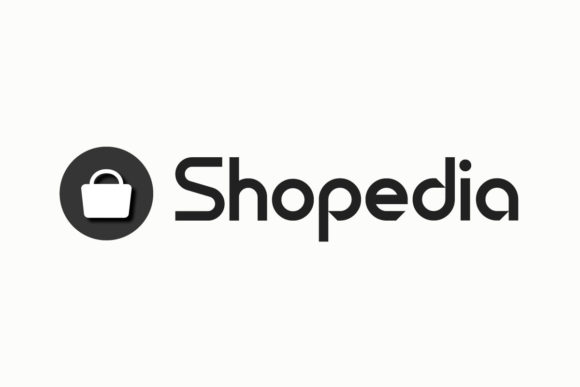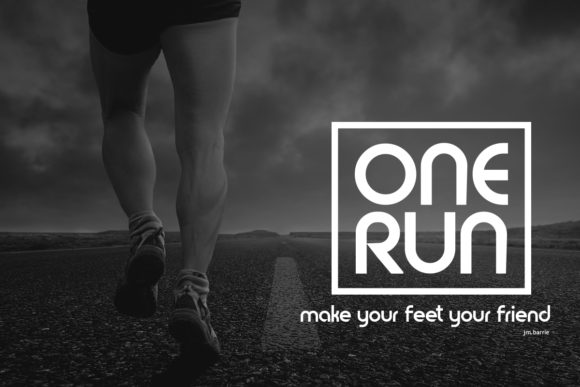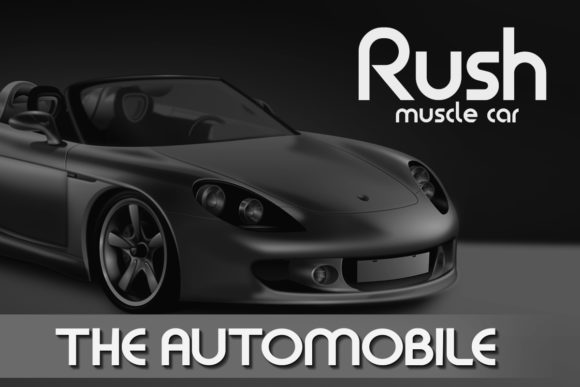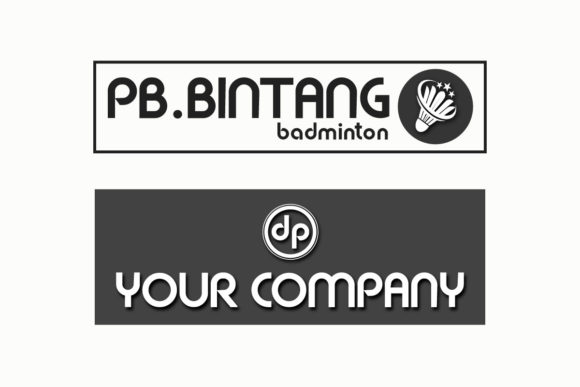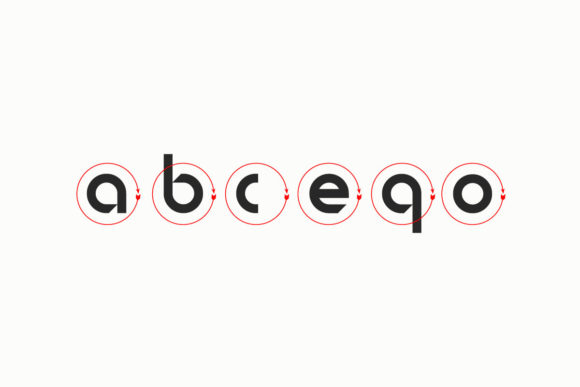
Grayson Font: Elevate Your Designs with a Modern Sans Serif Style
In the world of typography, fonts play a crucial role in conveying the tone and aesthetic of a design. For designers and crafters looking to add a touch of modernity to their projects, the Grayson font is an excellent choice. This sleek and contemporary sans serif font is perfect for a wide range of applications, from logos and magazines to branding and more.
What is Grayson Font?
Grayson font is a modern sans serif typeface designed to bring a fresh and clean look to your designs. Its minimalist approach and sleek lines make it an ideal choice for designers who want to create a bold and contemporary visual statement. The font’s simplicity and clarity ensure that it remains legible even at smaller sizes, making it versatile for various design applications.
Key Features of Grayson Font
- Modern Aesthetic: Grayson font boasts a modern sans serif design that instantly elevates the visual appeal of your projects.
- Versatility: Its clean and simple design makes it suitable for a wide range of applications, including logos, magazines, branding, and more.
- Legibility: The font’s clear and well-defined characters ensure excellent legibility, even at smaller sizes.
- Customization: Grayson font can be easily customized to fit your design needs, allowing for creative freedom.
Use Cases for Grayson Font
The versatility of Grayson font makes it an excellent choice for various design projects. Here are some popular use cases:
- Logo Design: Create a modern and memorable logo that stands out with Grayson font.
- Magazines and Editorials: Use Grayson font for headings, subheadings, and body text to give your magazine or editorial a clean and contemporary look.
- Branding: Establish a strong brand identity with Grayson font, perfect for company websites, brochures, and marketing materials.
- Digital Media: Enhance your digital content, such as blog posts, social media graphics, and presentations, with the modern appeal of Grayson font.
Tips for Using Grayson Font Effectively
To make the most of Grayson font, consider the following tips:
- Pair with Complementary Fonts: Combine Grayson font with serif or script fonts to create visual contrast and hierarchy.
- Experiment with Sizes and Weights: Play with different sizes and weights of Grayson font to add depth and emphasis to your design.
- Use Color Strategically: Select colors that complement your brand or design theme to enhance the overall impact.
Grayson font is a powerful tool for designers and crafters looking to infuse their projects with a modern sans serif style. Its clean design, versatility, and legibility make it an excellent choice for a wide range of applications. By incorporating Grayson font into your design repertoire, you can create visually stunning and effective designs that leave a lasting impression.